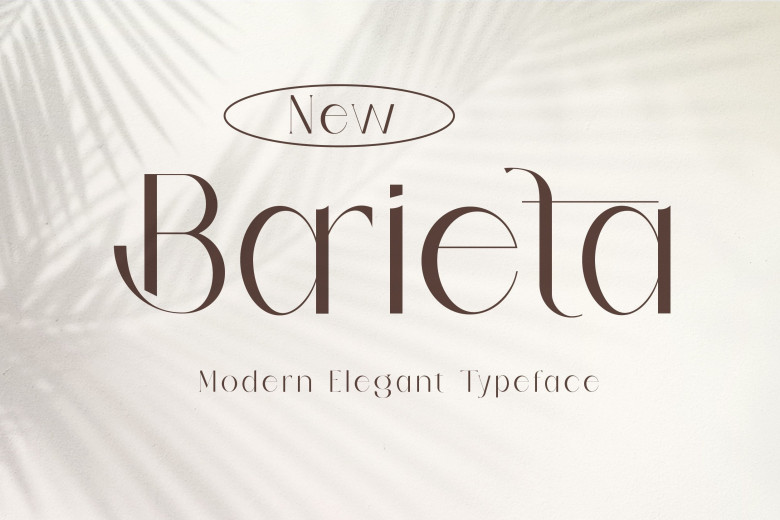
Barieta Font
Barieta is a super thin and stylish modern look sans serif font, This font is made for those of you who like unusual styles, Barieta font is excellent for big logo and headline design projects, Barieta font consists of uppercase, lowercase, and numbers and supports other languages.
Barieta Sans Serif Font